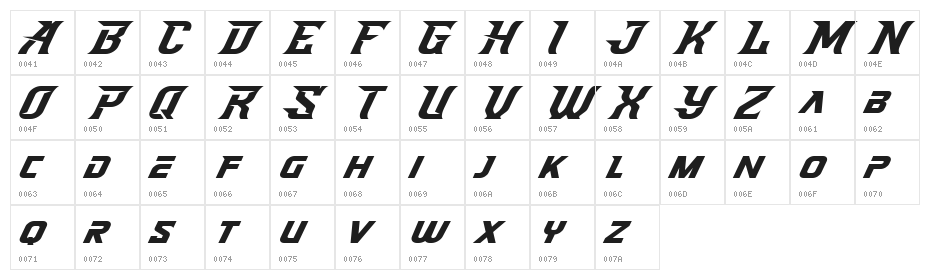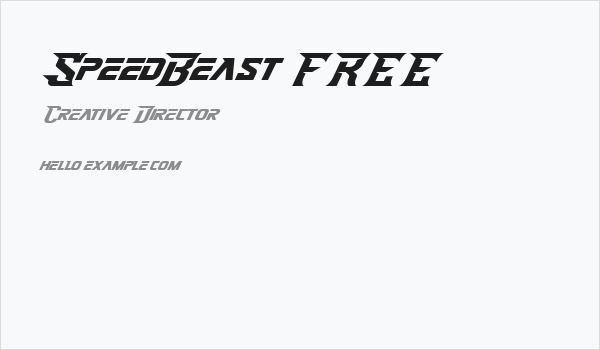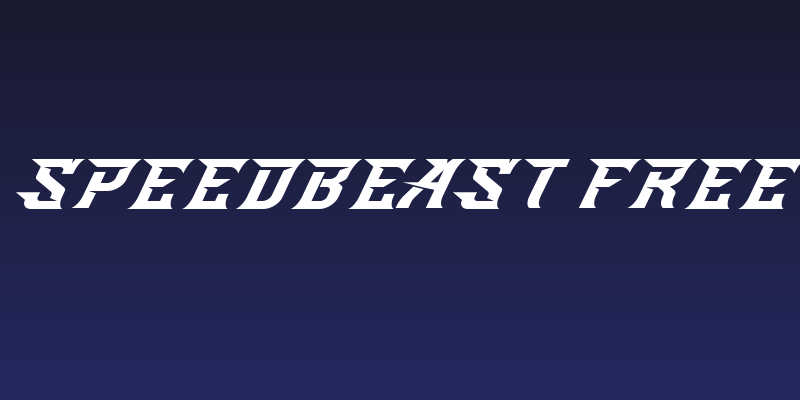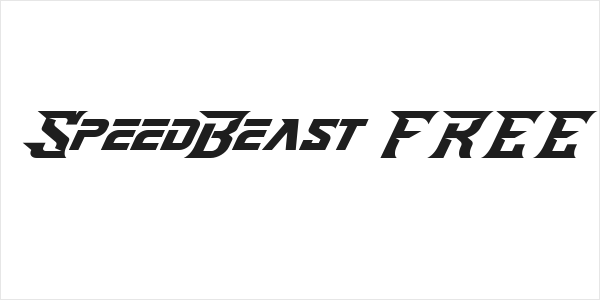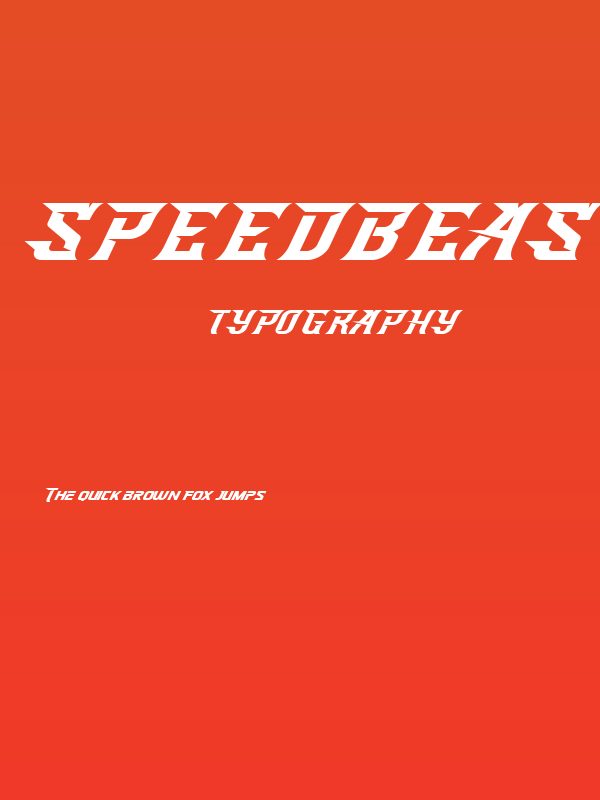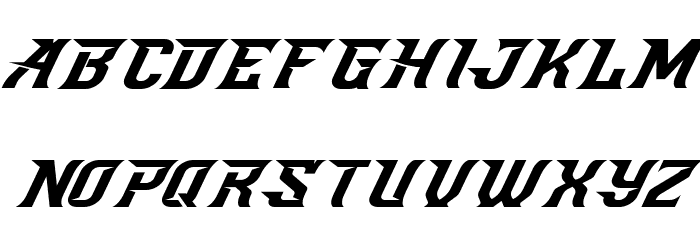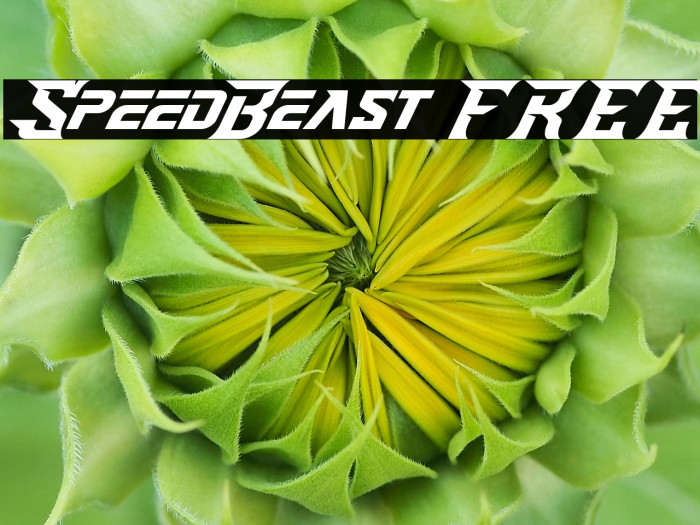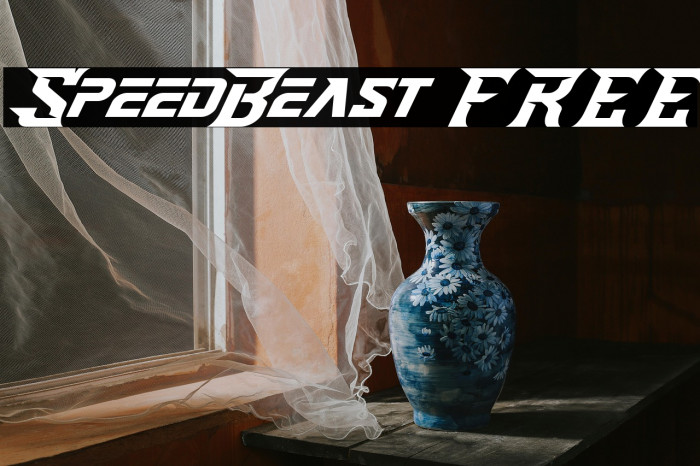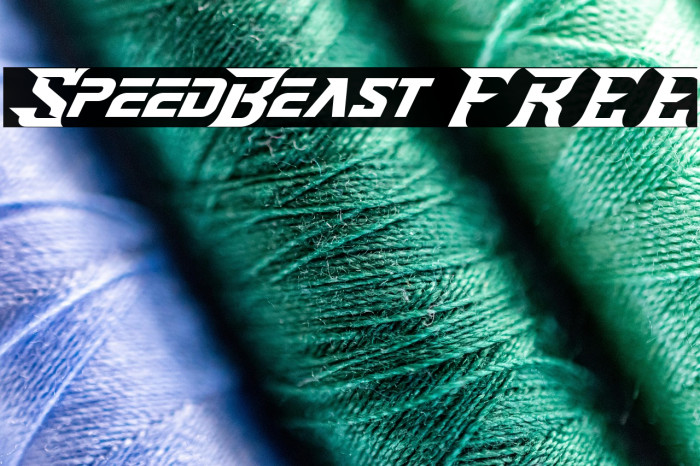
SpeedBeast FREE Font
SpeedBeast FREE Description
This font features a dynamic and aggressive design, characterized by sharp angles and a bold presence. The letters are slanted, giving a sense of motion and speed, which is further emphasized by the angular cuts and pointed edges. The uppercase letters are particularly striking, with a futuristic and edgy style that suggests movement and energy. The font's design is consistent across all characters, maintaining a cohesive and impactful look. It is ideal for projects that require a strong visual impact and a modern, high-energy aesthetic.
| Proposed Projects | Perfect for sports branding, automotive designs, video game titles, and dynamic advertising campaigns. |